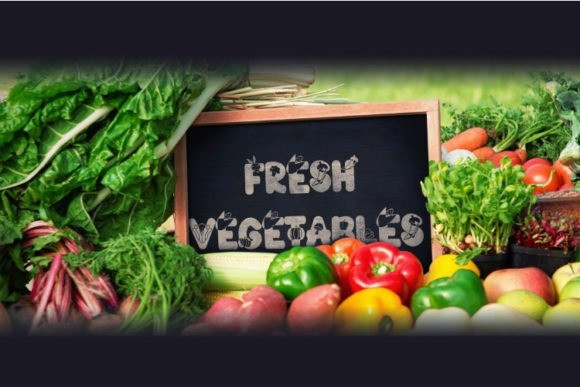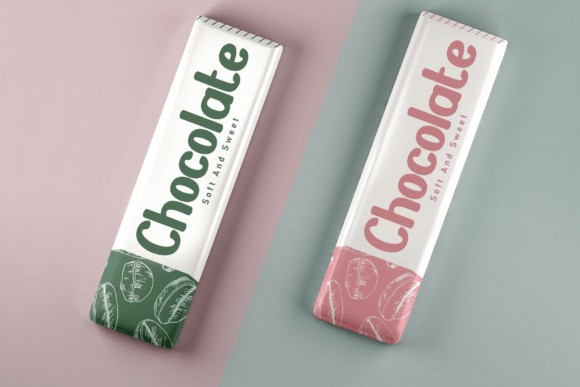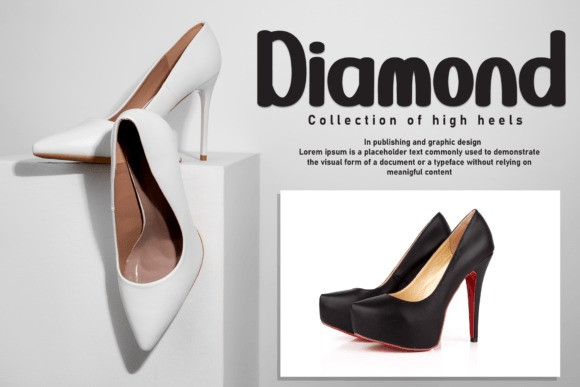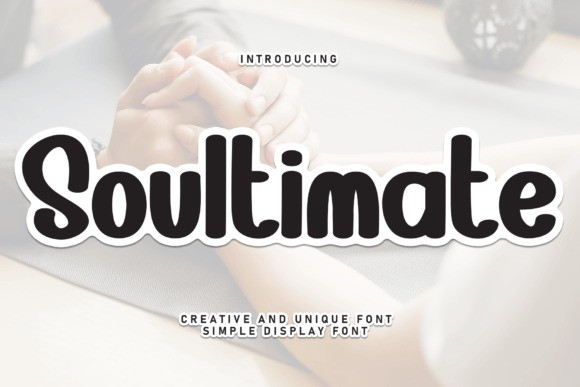
Soultimate Font
Soultimate Font is a sweet and friendly handwritten display font. Cute and fun, this font is ideal for writing wedding invitations, cards, or any other design that might need a fun touch!